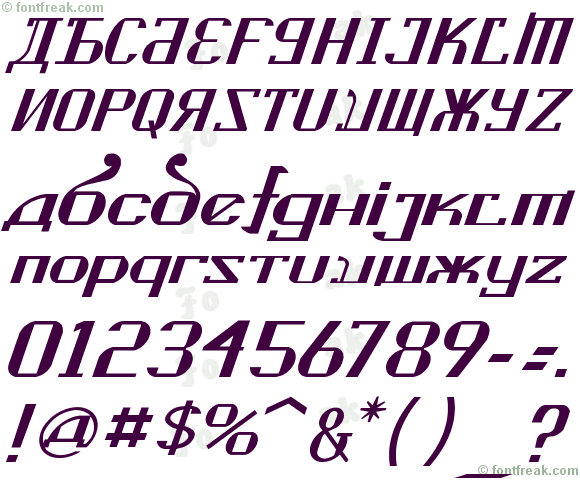
Kremlin Soviet Italic
About Kremlin Soviet Italic
Kremlin Soviet Italic by Bolt Cutter is a striking display font that effortlessly captures the essence of Soviet-era design with a contemporary twist. This font falls into the decorative category, characterized by its unique italic style that evokes a sense of nostalgia and historical significance. The stroke weight is moderately bold, providing a strong presence while maintaining a level of elegance. Its sharp angles and slight contrast enhance its visual appeal, giving it a dynamic, energetic quality that stands out in various applications.
The Kremlin Soviet Italic font is versatile and particularly well-suited for a range of creative projects. It shines in contexts such as movie posters that seek to evoke a retro aesthetic, graphic novels that require a dramatic flair, and event flyers that aim to grab attention. Additionally, it can be effectively used in branding for businesses that want to convey a sense of heritage or uniqueness, making it a valuable tool for small business owners looking to distinguish their offerings. Graphic designers and content creators will also find this font an excellent choice for any project that requires a bold and memorable typographic statement.
What sets the Kremlin Soviet Italic apart is its powerful historical resonance combined with modern usability. The font's unique character draws the viewer in, creating an immediate connection to the themes of strength and resilience often associated with its Soviet roots. With a freeware license, the Kremlin Soviet Italic font free download offers an accessible opportunity for creators to incorporate this distinctive typeface into their work without financial barriers. Its exceptional design and versatility make it a must-have for anyone looking to make a statement in their typography.